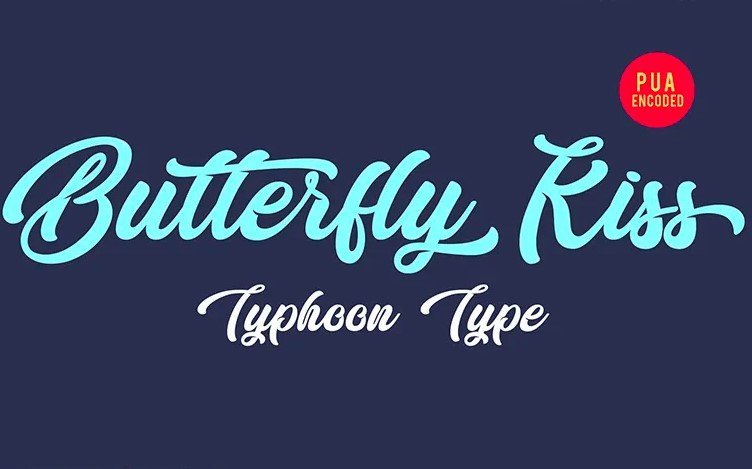
Presenting Butterfly Kiss Font, a distinct and exquisite high-quality typeface designed by Typhoon Type font. It pairs wonderfully with the Alegreya Sans Thin font. You can download it with a single click on the button provided in the download section below.
This is suitable to utilize for creating eye-catchy, attractive, and calligraphic posts easily. It contains the features for creating the project that you did not see before.
It has more than 298 glyphs and ligatures that come with more beautiful stylistic sets that is better for all kinds of designs that your clients expect from you.